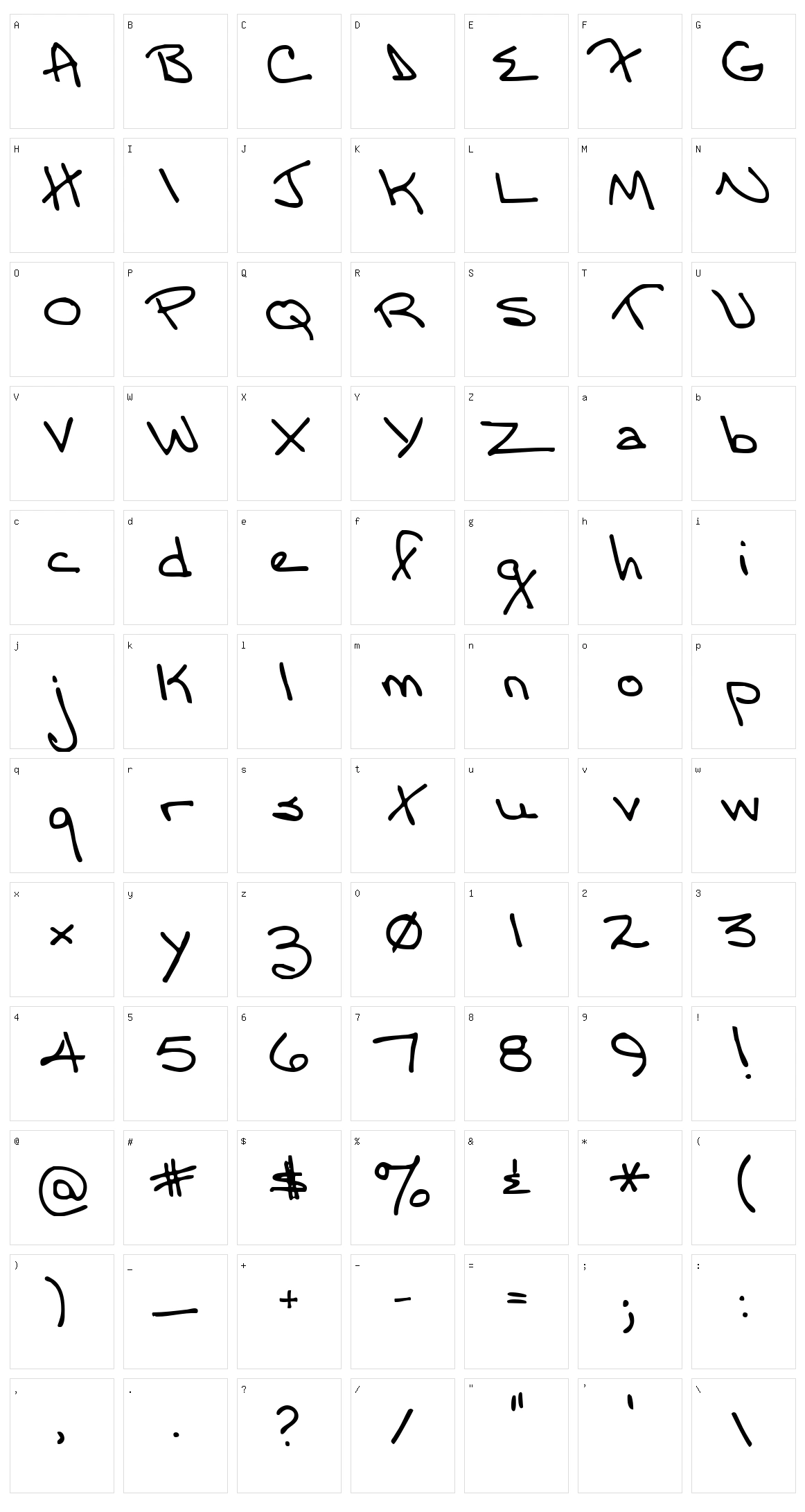
The free font Moms Font YOFF is carefully designed by Your Own Font, showcasing a thoughtful balance of creativity and usability and falls under the Script font style. When you download the ZIP file, it contains only 38.09 KB of font files, making it lightweight and quick to download. Please review the license details below to understand permitted usage and distribution rights. If license information is not available, we recommend using this font for personal projects only or contacting the author directly for commercial usage permissions.